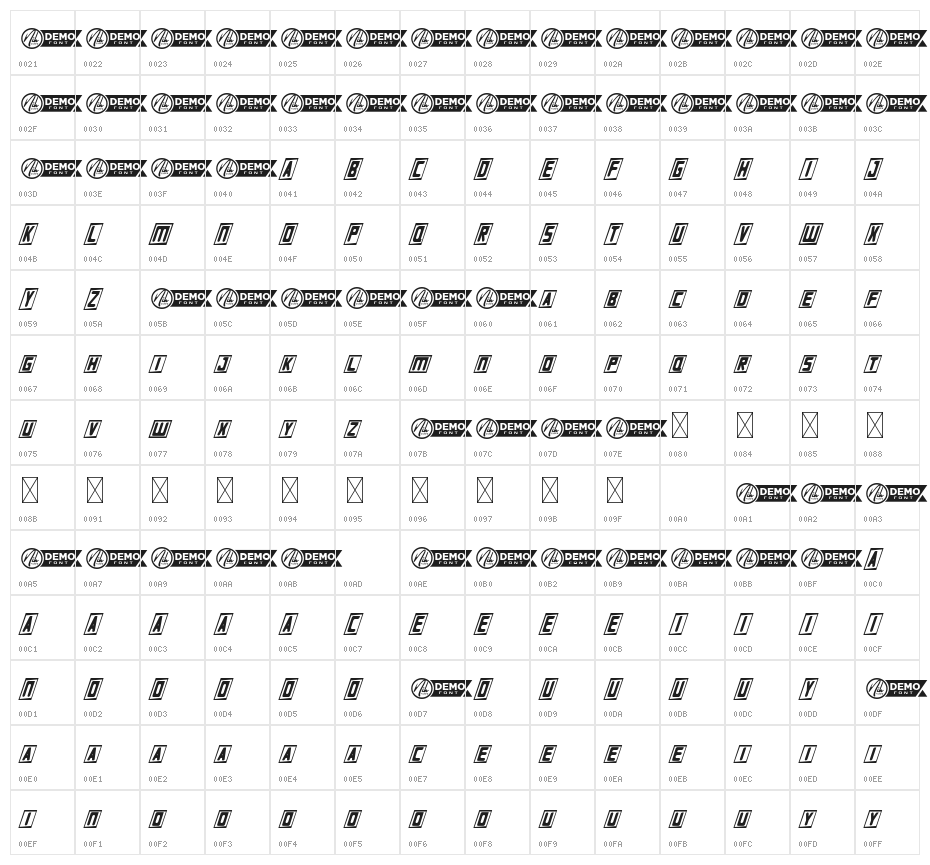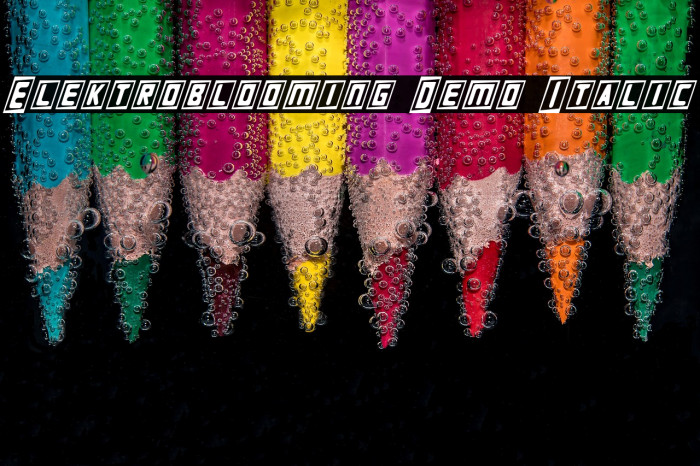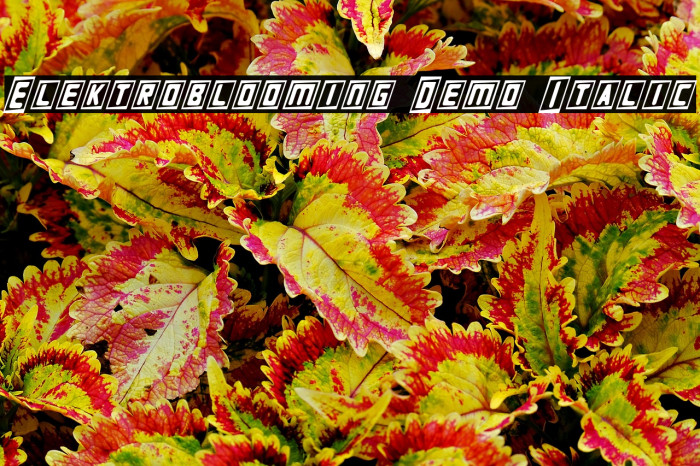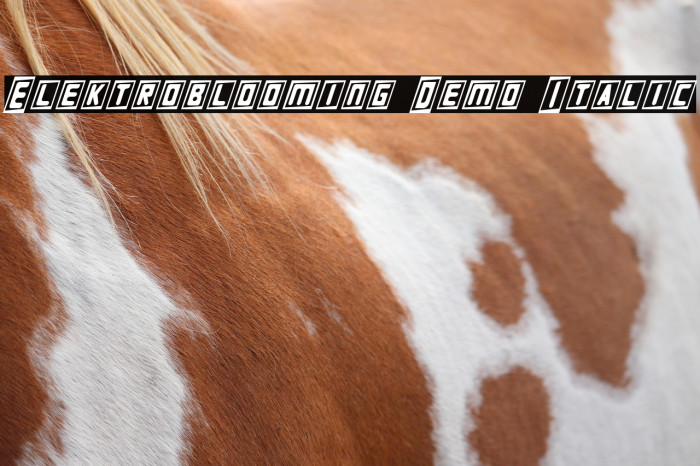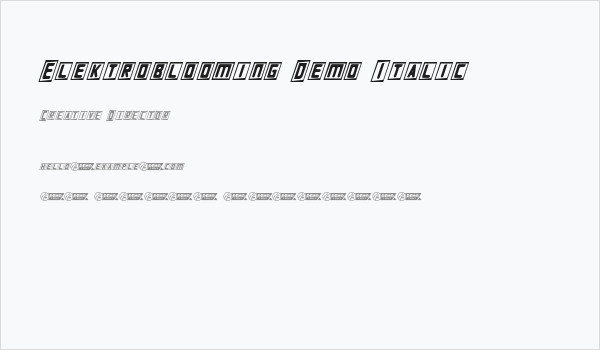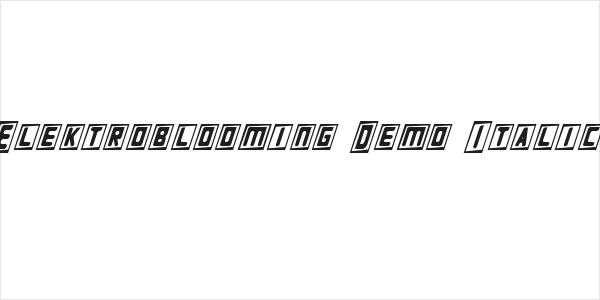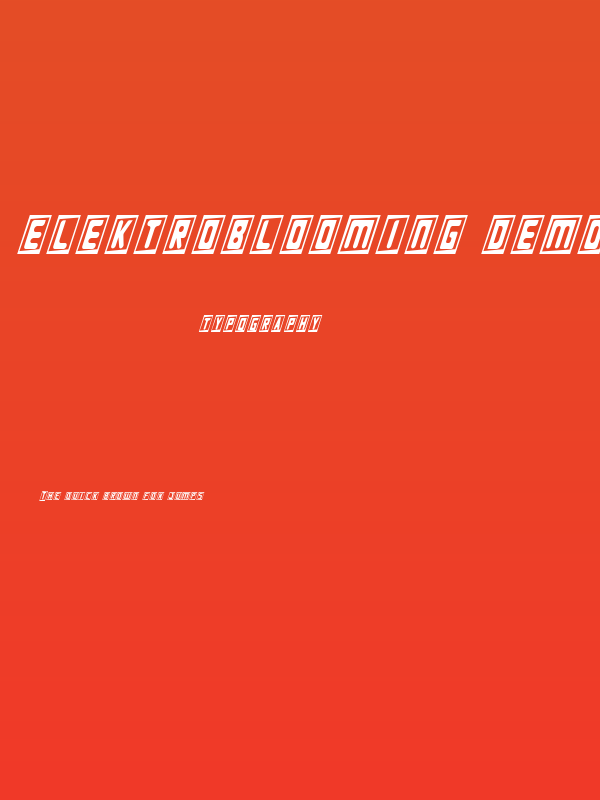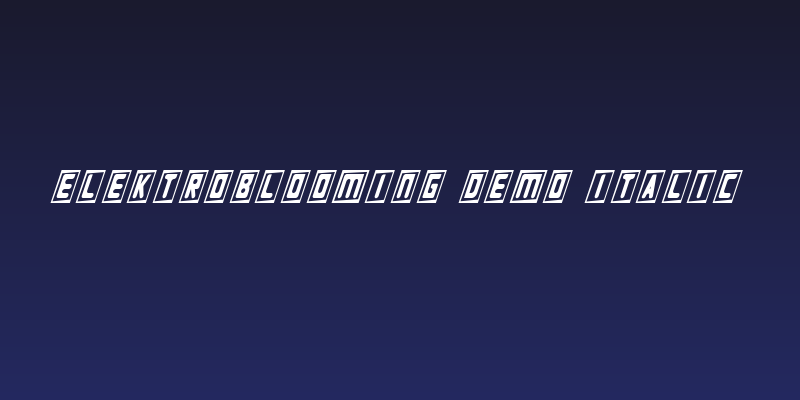
Elektroblooming Demo Italic Font
Elektroblooming Demo Italic Description
This font features a bold and dynamic design with each character enclosed in a tilted rectangular frame, creating a sense of movement and energy. The letters are uppercase and exhibit a strong geometric influence, with sharp angles and clean lines. The italic style adds to the dynamic feel, making it suitable for attention-grabbing headlines or logos. The font's unique presentation gives it a modern and futuristic appearance, ideal for projects that require a bold statement.
| Proposed Projects | Ideal for branding, posters, video game graphics, and any project needing a futuristic and bold aesthetic. |